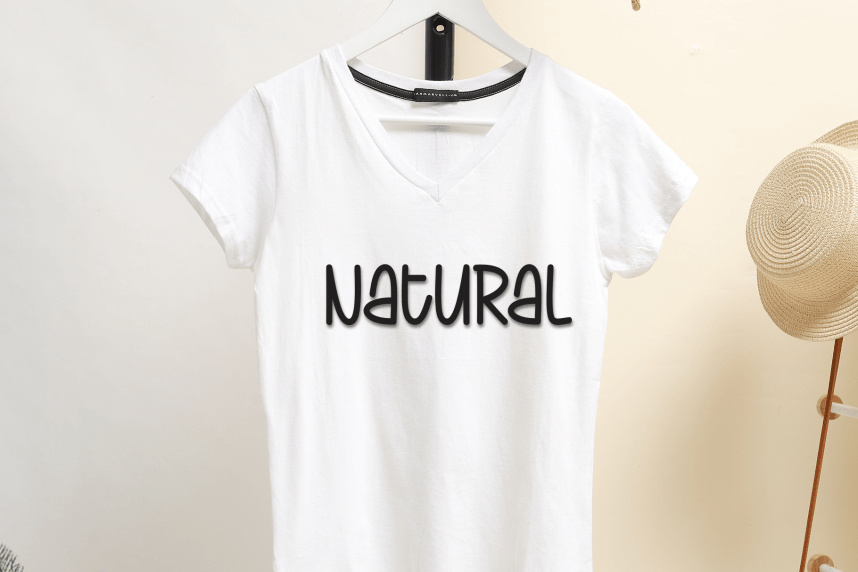
Sticky Honey – Playful Handmade Font
Sticky Honey – Playful Handmade Font is a sweet and friendly handwritten display font. Cute and fun, this font is ideal for writing wedding invitations, cards, or any other design that might need a playful touch!